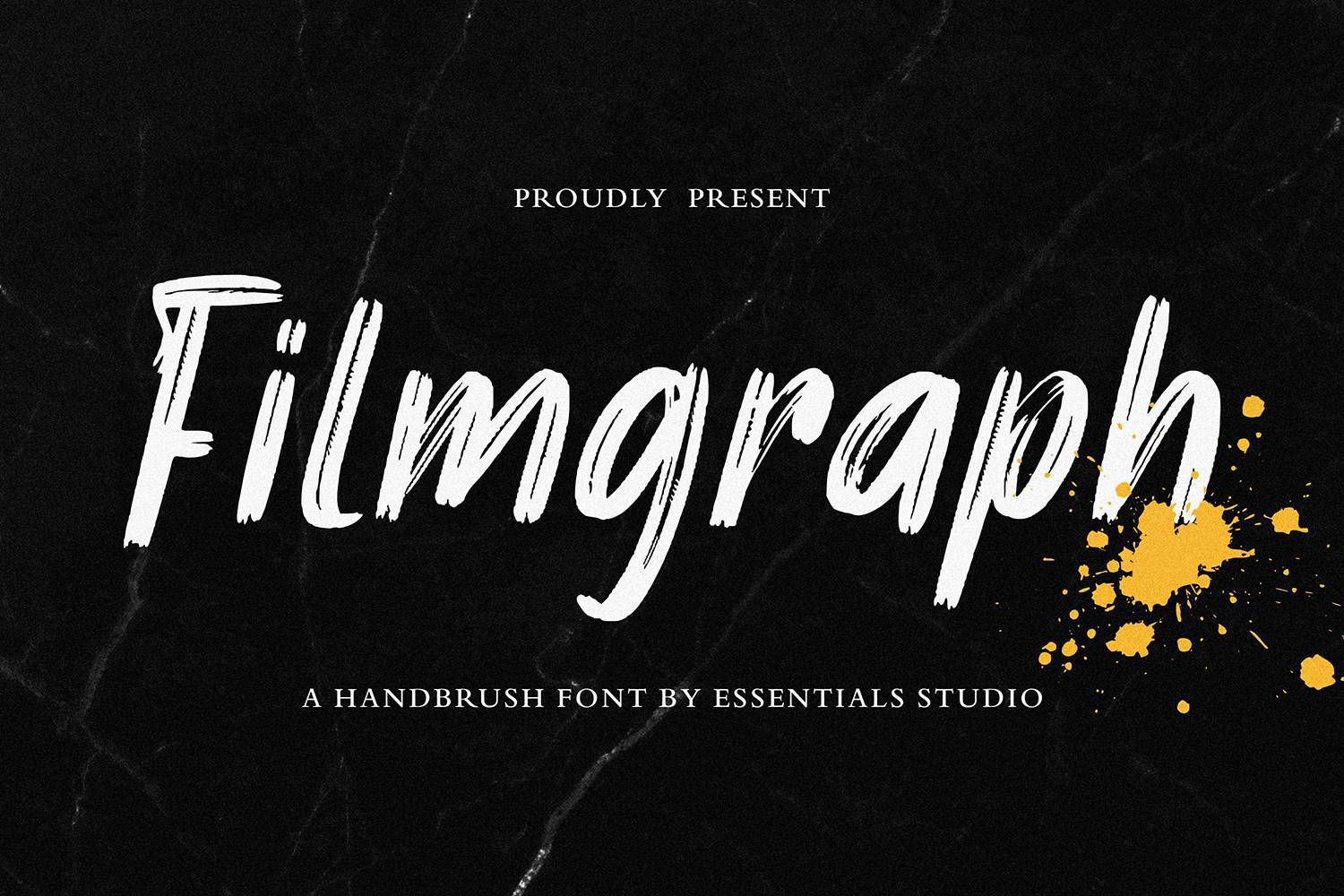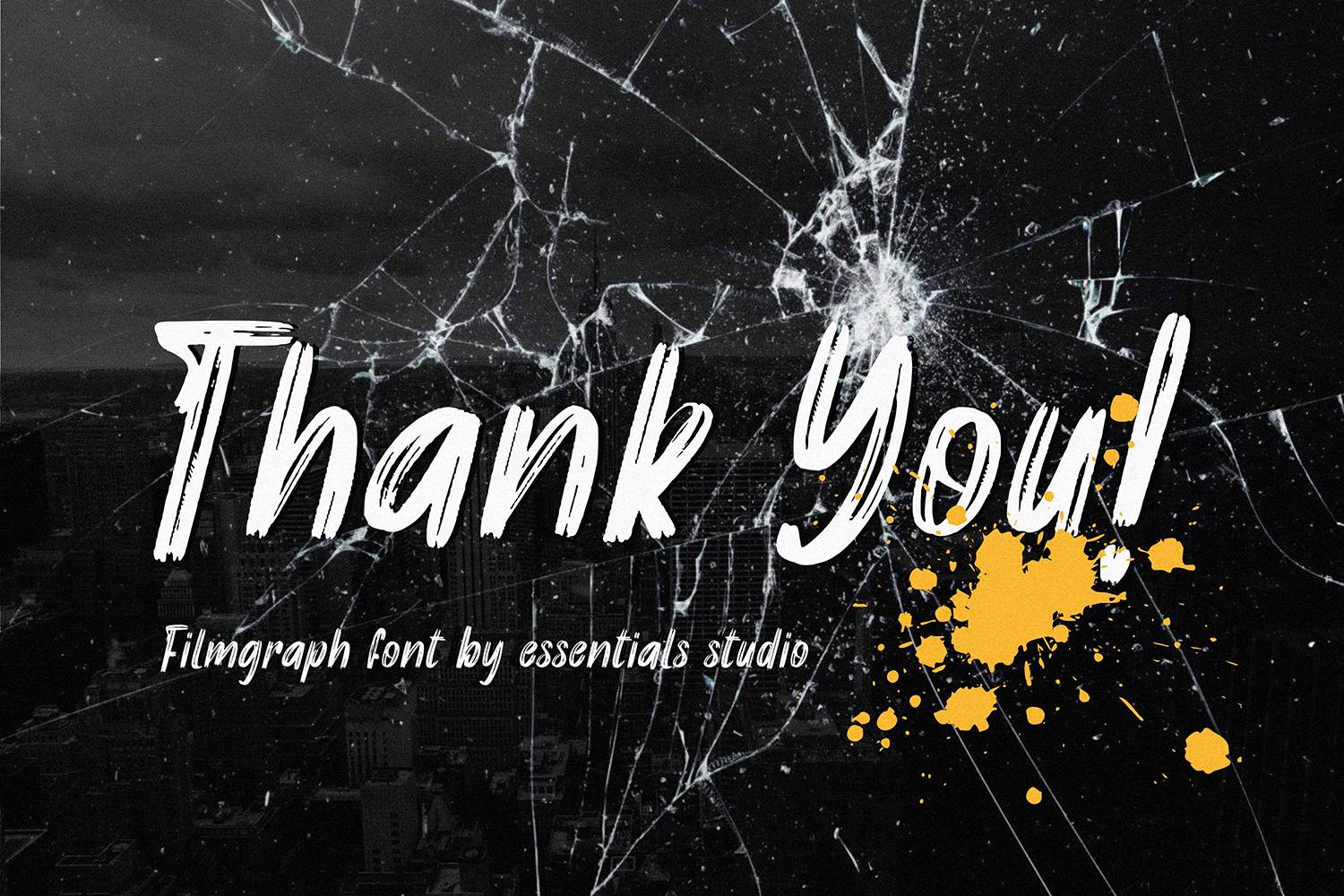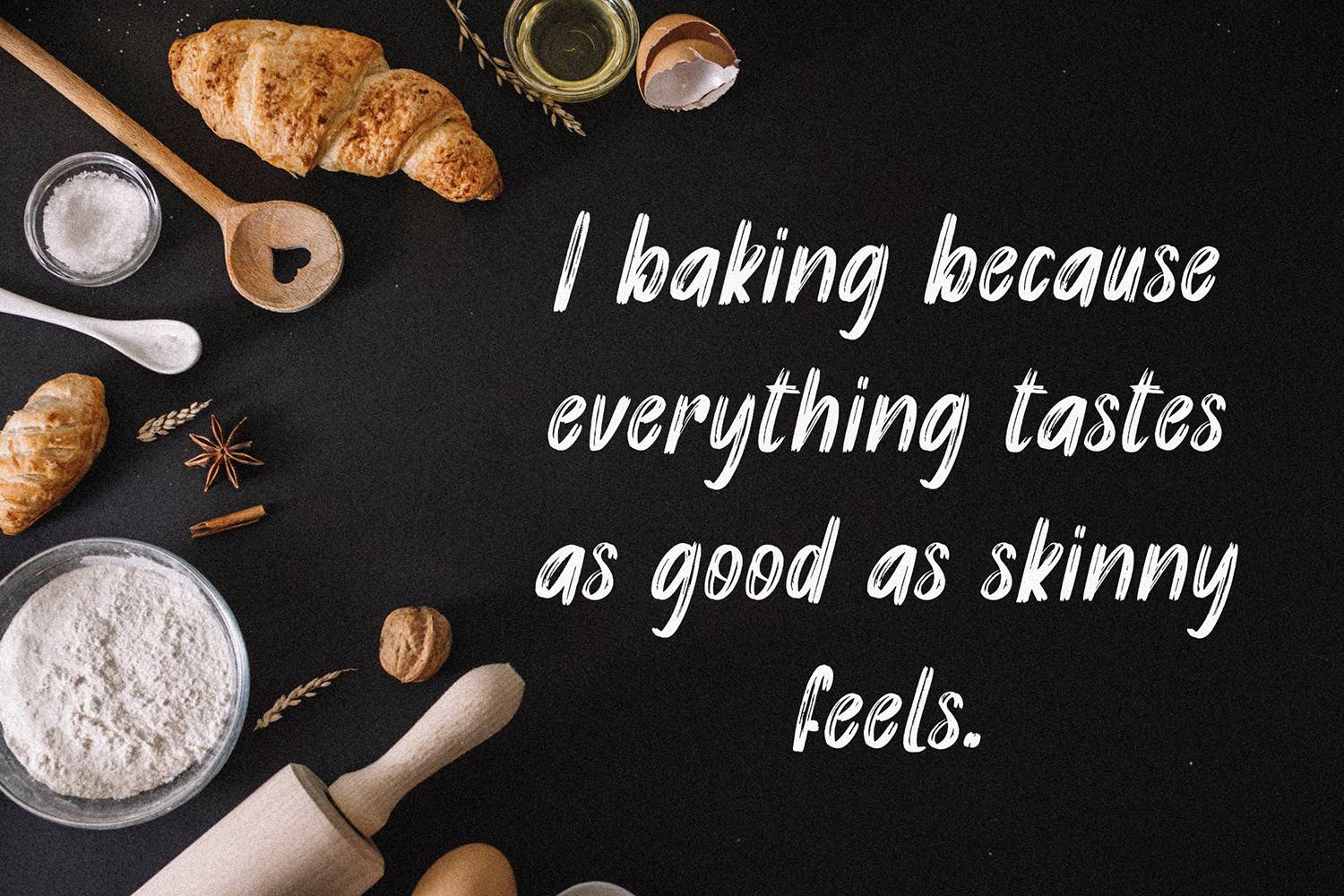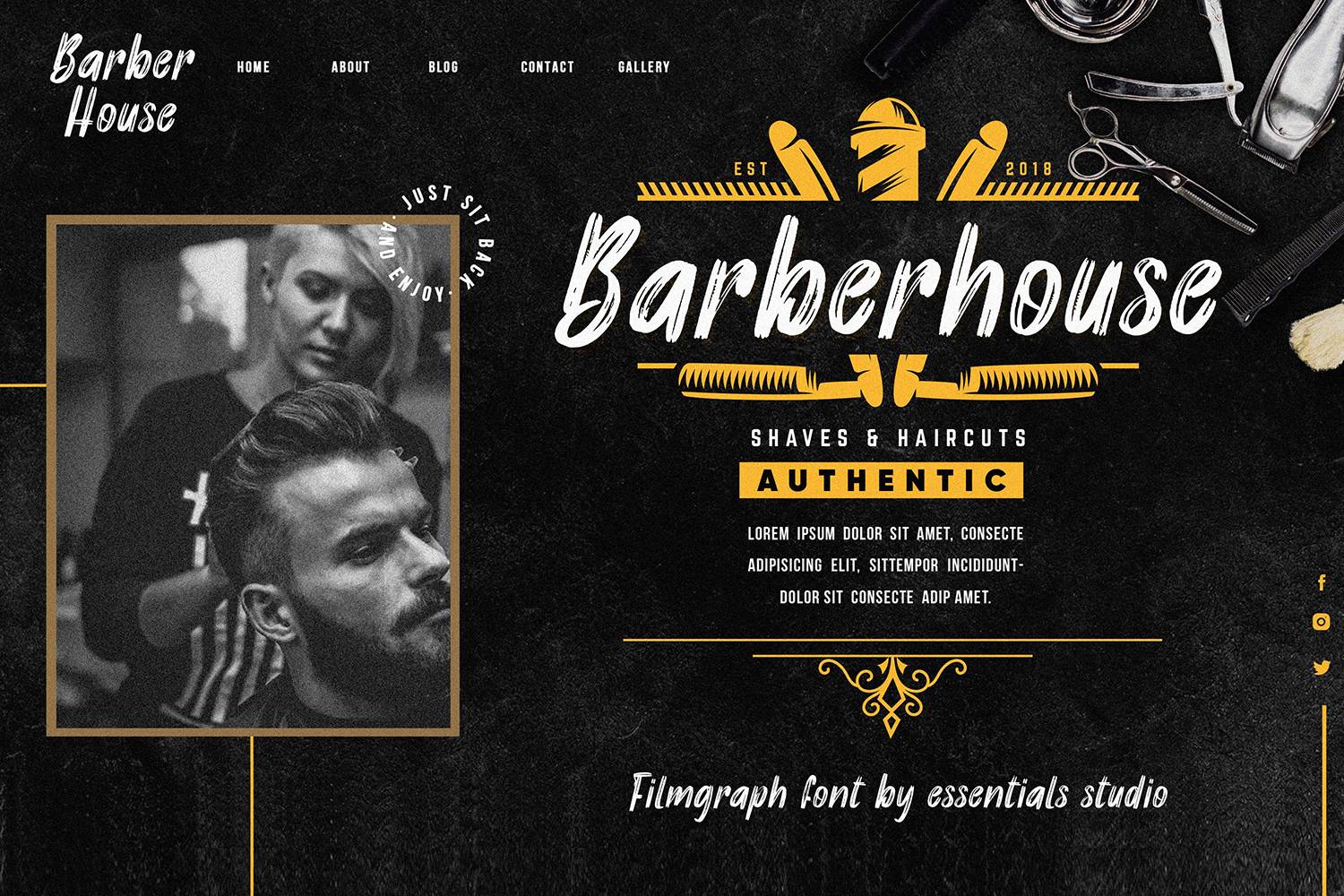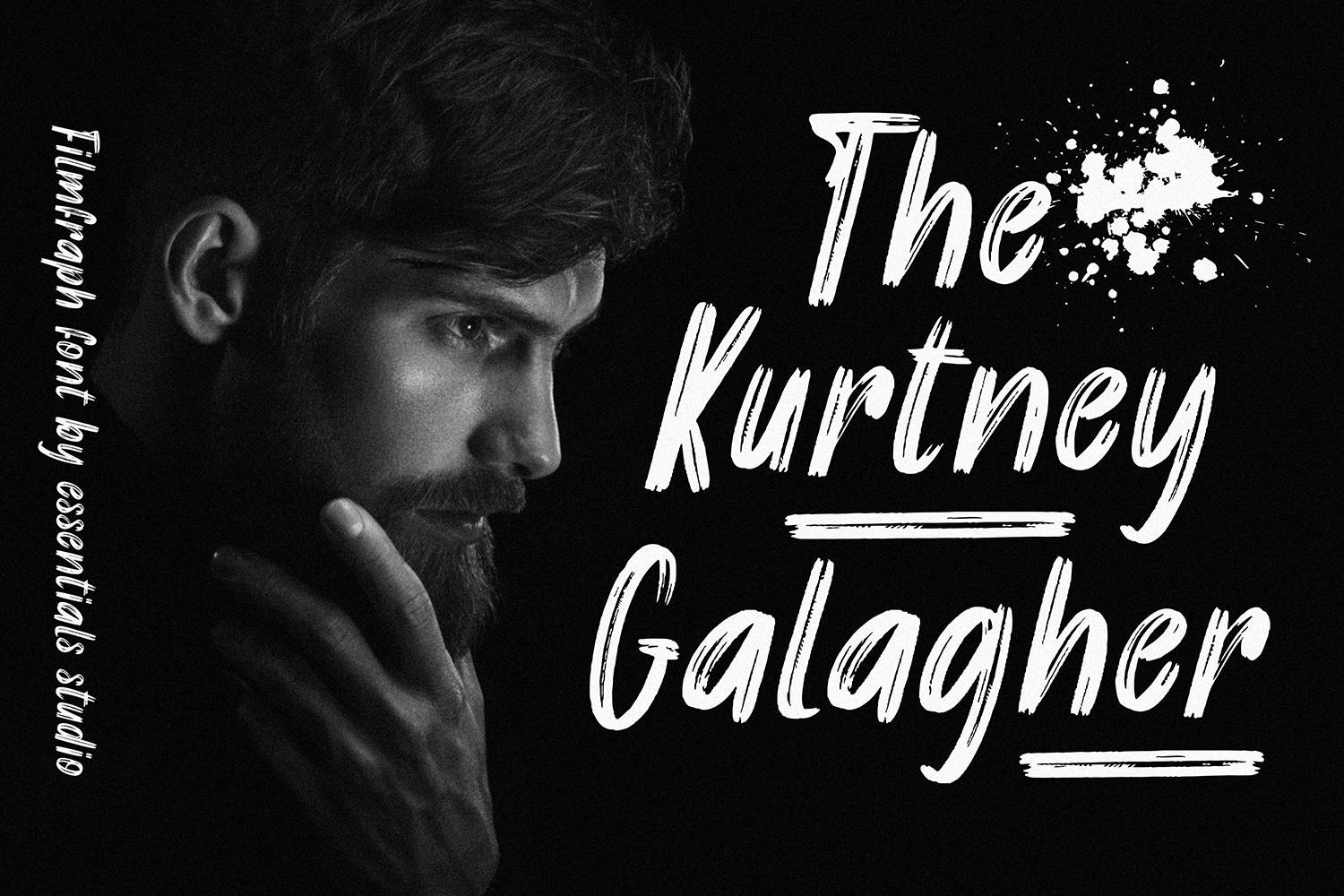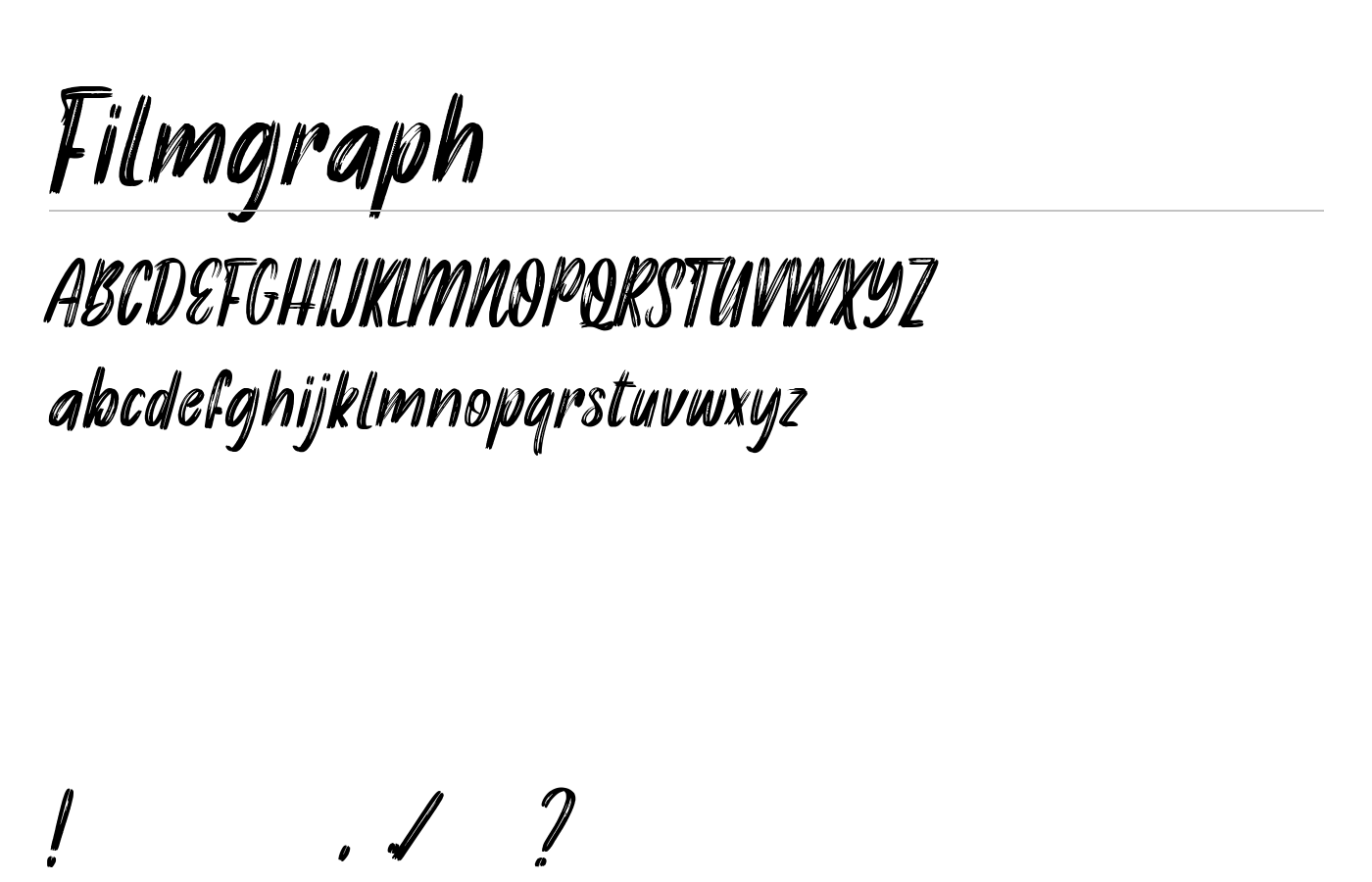
Filmgraph is a lively brush script font with a casual, hand-painted feel. It features energetic strokes with varying thickness, giving it a textured, artistic look ideal for creative projects, branding, and headlines where a personal, expressive touch is needed. This font works well for designs that aim to feel dynamic and approachable, such as posters, logos, and packaging in lifestyle or artsy markets.
Filmgraph Font
About Filmgraph Font
| Font family | Filmgraph Font |
| Designer | Annas Rifky Anhar |